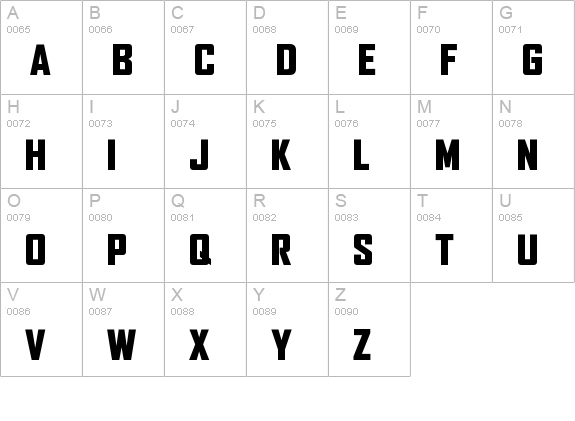
AgencyFB-Black is a maximum-weight, dramatic variant in the AgencyFB typeface family \xE2\x80\x94 well suited to maximum-impact headlines, posters, and packaging.
AgencyFB-Black is a modern and sleek font that exudes sophistication and professionalism. With its bold and sharp design, this font is perfect for creating eye-catching headlines, logos, and branding materials. The strong and commanding presence of AgencyFB-Black makes it ideal for projects that require a bold statement. The best part about AgencyFB-Black is that it is available for free download at FontsMarket.com. This means that you can easily access this versatile font and use it in your designs without any cost. Whether you're working on a print project, a website design, or any other creative endeavor, AgencyFB-Black is a valuable addition to your font collection. Don't miss out on the opportunity to enhance your designs with the striking elegance of AgencyFB-Black. Download this font for free today at FontsMarket.com and elevate your creative projects to the next level.